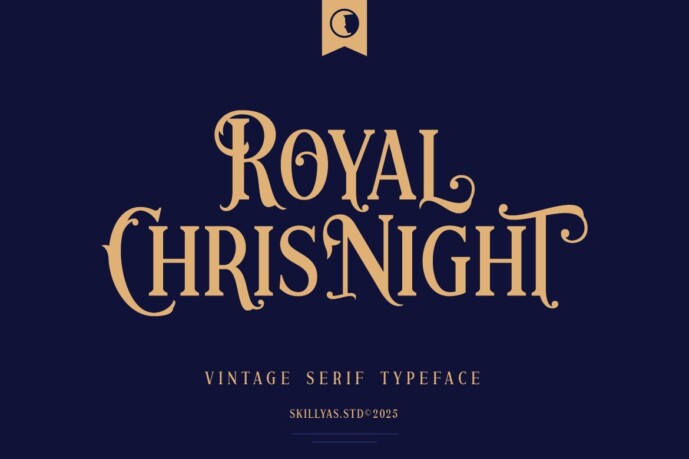
Royal Chrisnight Font
Royal Chrisnight is a Vintage Serif font with Elegant, Classic Details and a Timeless feel. Ideal for logos, branding, packaging, and editorial design, it adds a touch of royal charm and retro sophistication to any project.
• Uppercase & Lowercase Letters
• Ligature (Standard and Discretionary)